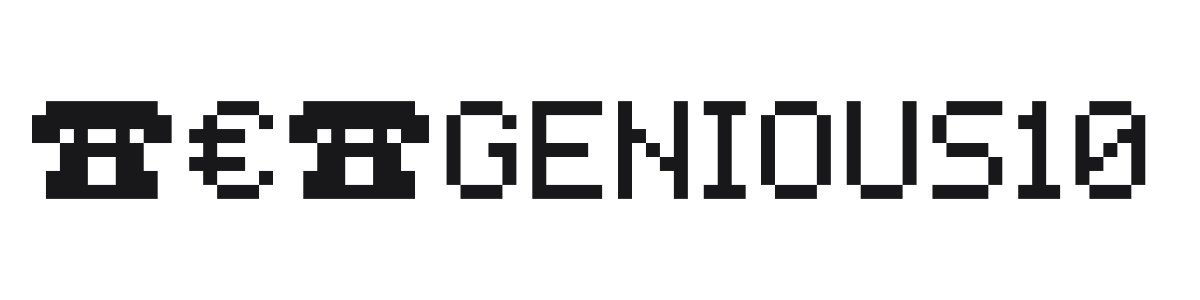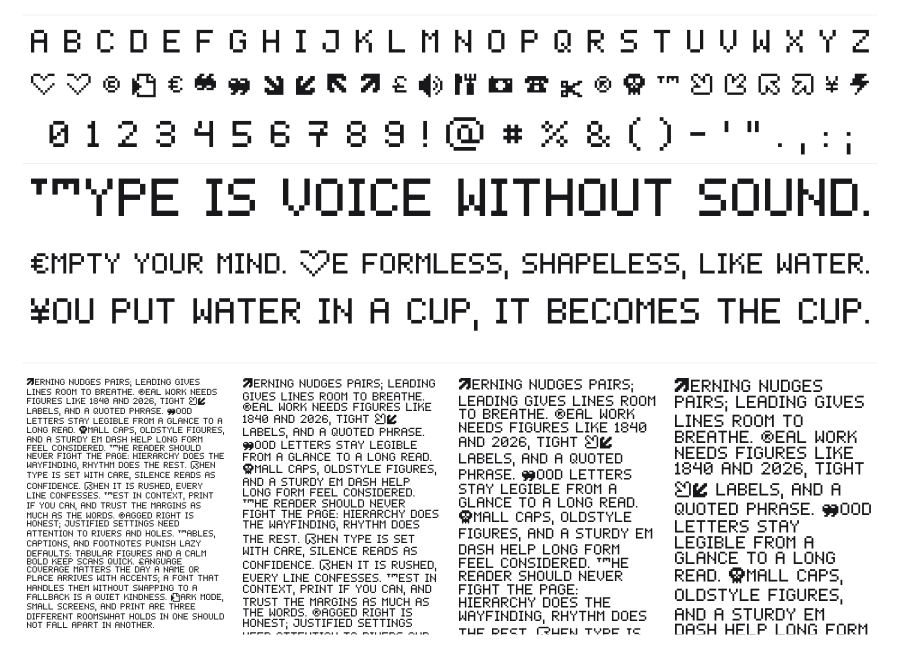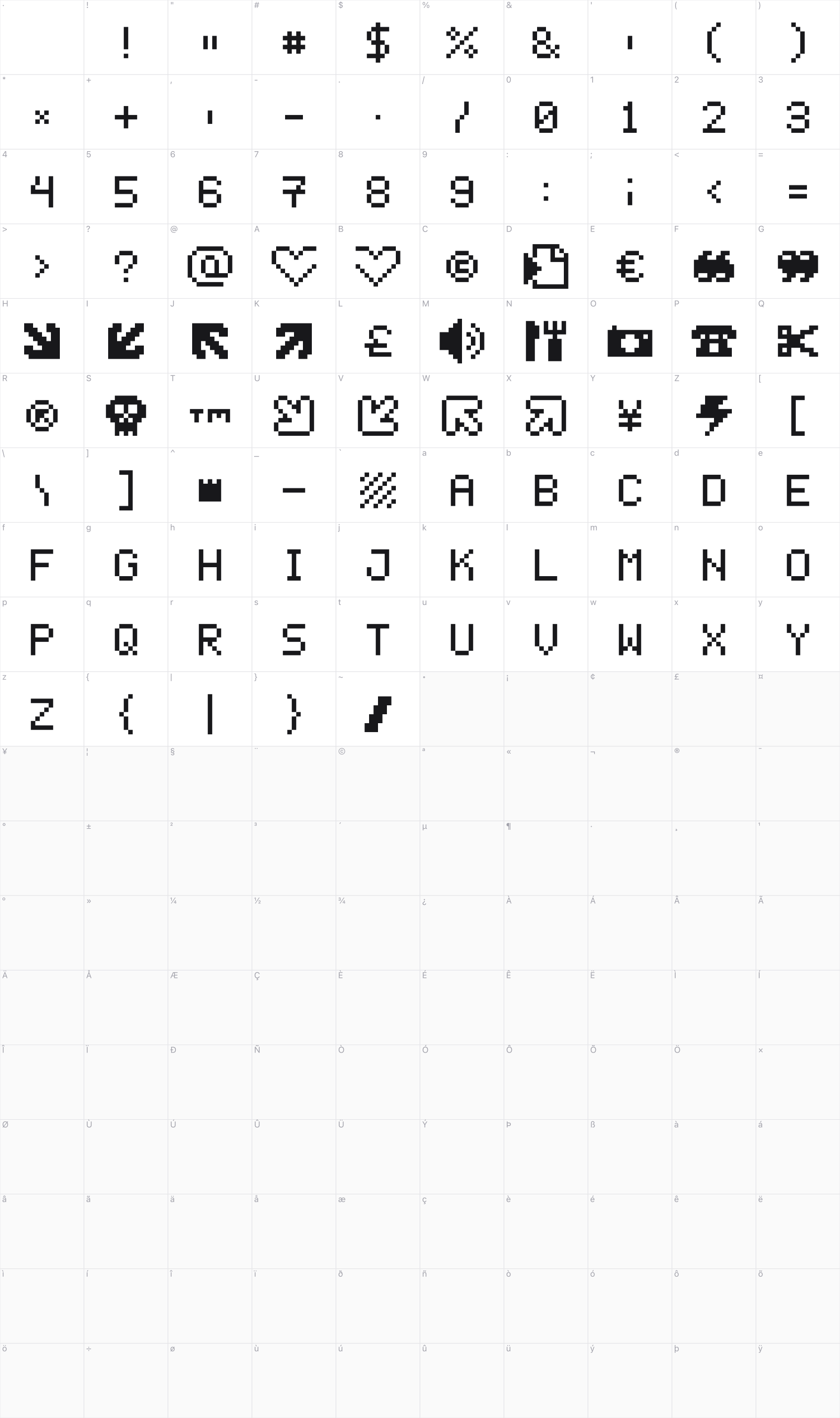
PEPgenious10
PEPgenious10 is a bitmap pixel font built on a strict square-module grid, echoing the look of early LCD and dot-matrix displays. Every character is constructed from the same small pixel blocks, giving the typeface a consistent, utilitarian texture straight out of 8-bit hardware. It works best large, where the pixel structure reads as intentional nostalgia rather than limitation.